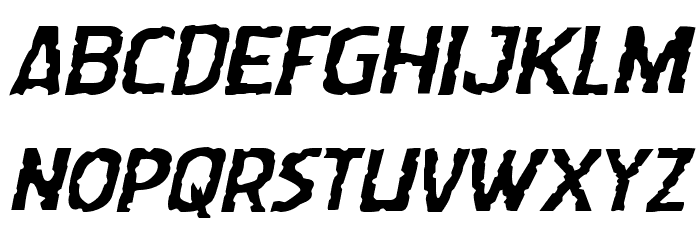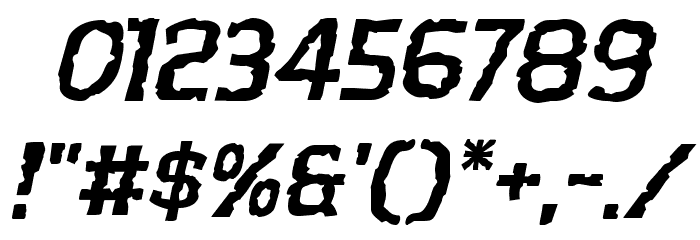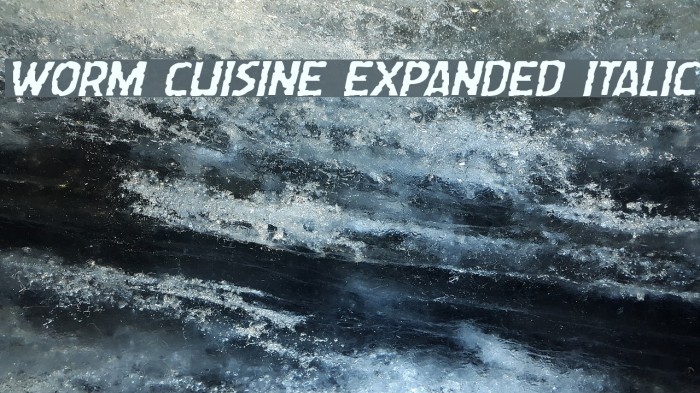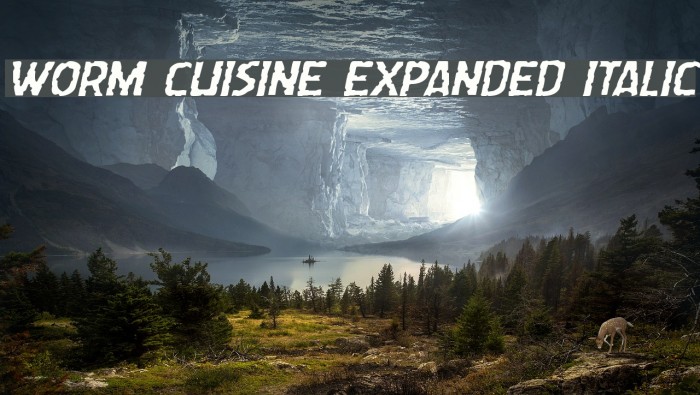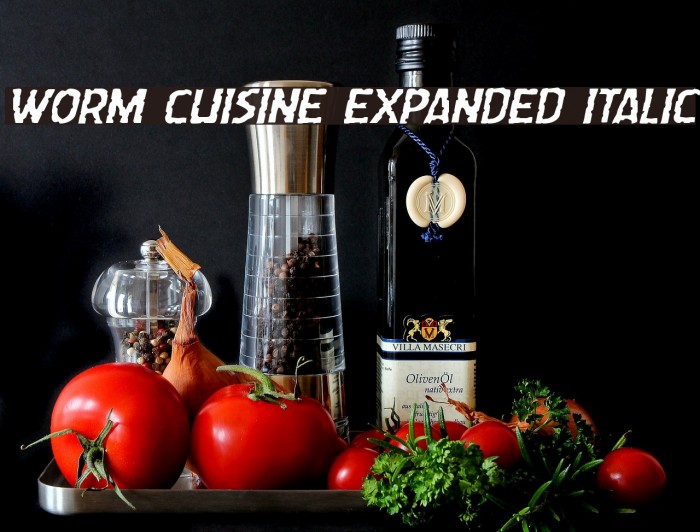
Worm Cuisine Expanded Italic Font
This font features a bold and dynamic style with an expanded and italicized form. The characters have a rugged, textured appearance, giving them a unique and eye-catching look. The strokes are thick and uneven, adding a sense of movement and energy. This font is designed to stand out, making it ideal for attention-grabbing headlines or creative projects. The expanded width of the characters enhances its boldness, while the italic slant adds a touch of sophistication. The overall style is modern and distinctive, suitable for a variety of design applications.
A bold, expanded, and italicized font with a rugged, textured appearance.
- Font: Worm Cuisine Expanded Italic
- Weight: Expanded Italic
- Proposed Projects: Ideal for posters, logos, branding, and any project requiring a bold, standout typeface.
- Width: Expanded